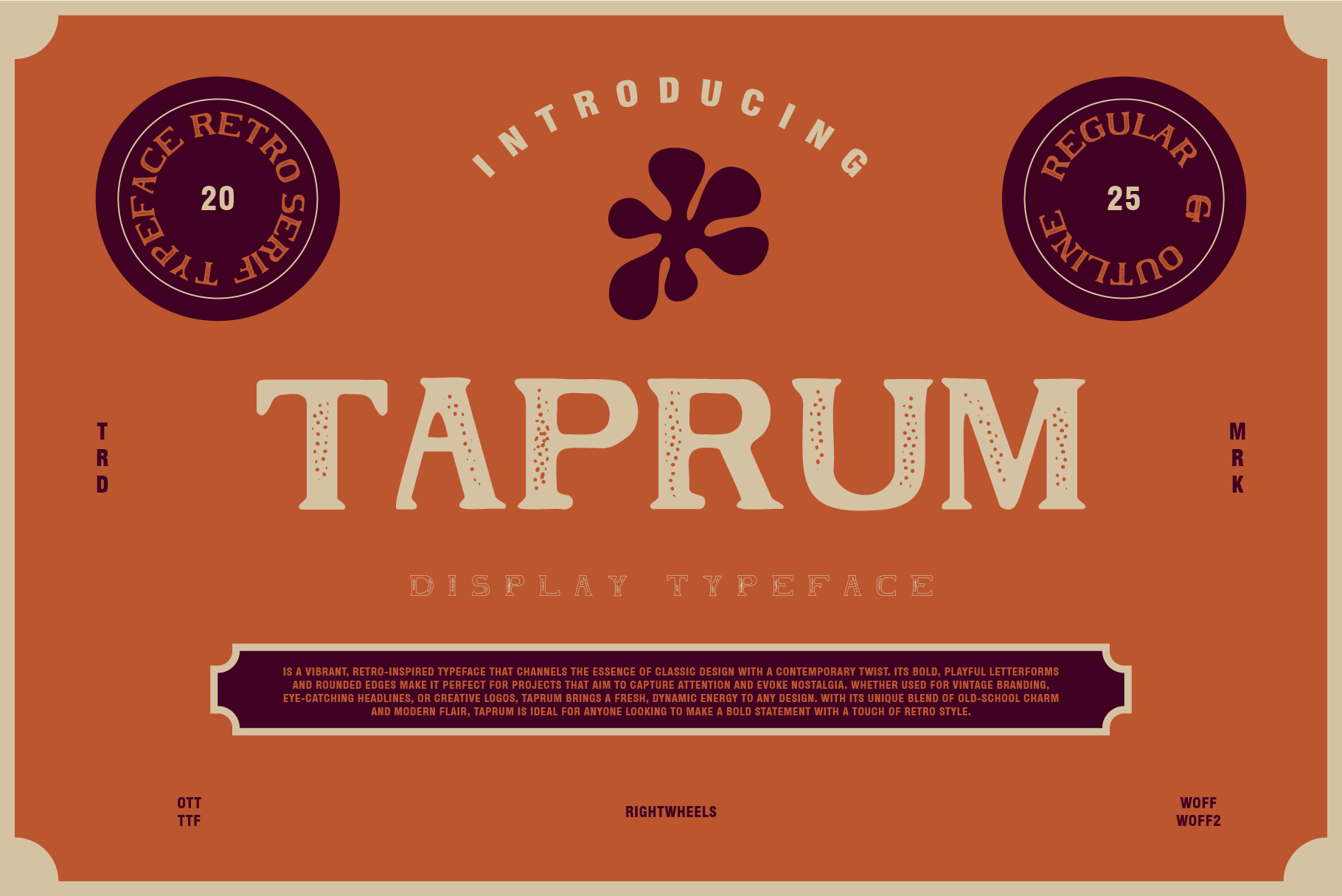
TAPRUM - Retro Display Font
Taprum is a vibrant, retro-inspired typeface that channels the essence of classic design with a contemporary twist. Its bold, playful letterforms and rounded edges make it perfect for projects that aim to capture attention and evoke nostalgia. Whether used for vintage branding, eye-catching headlines, or creative logos, Taprum brings a fresh, dynamic energy to any design. With its unique blend of old-school charm and modern flair, Taprum is ideal for anyone looking to make a bold statement with a touch of retro style.